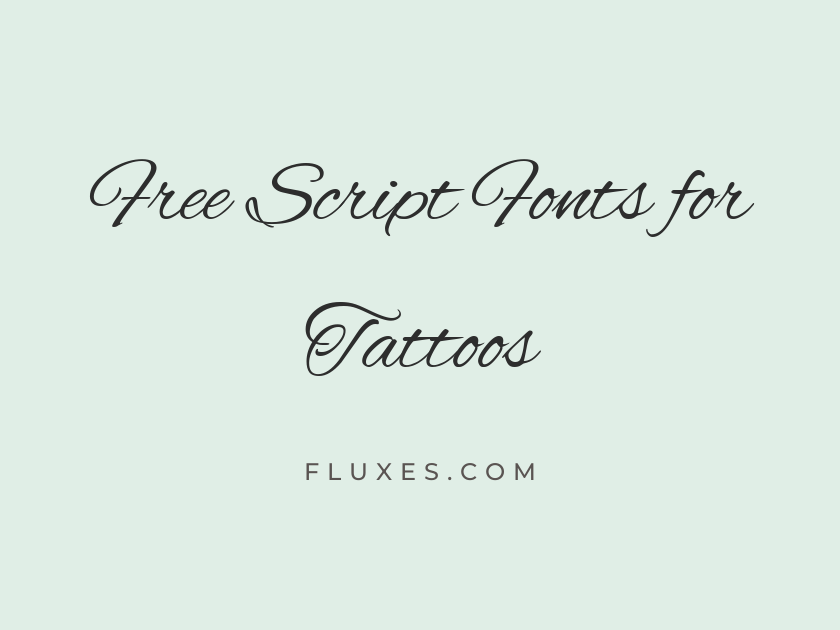
68 Best Free Script Fonts for Tattoos
Script lettering has been part of tattoo culture for as long as tattoo culture has existed, from sailor-parlor banners to modern fine-line quote work behind the ear. Choosing the right free script font for tattoo lettering means thinking beyond the screen: a flourish that looks gorgeous in a logo can turn into a blob of ink once it hits skin, ages a few years, and settles into softer lines. The fonts gathered here cover the full range that tattoo artists and their clients actually request, from formal copperplate calligraphy to loose, handwritten notes, all free to download and preview instantly on Google Fonts.
1. Alex Brush
Forever inked, forever remembered
Alex Brush is one of the most requested tattoo script fonts for a reason: its connected strokes and confident swash capitals read as genuinely hand-lettered rather than digital.
It holds up well in medium sizes on forearms and ribs, though the thinnest hairlines can blur slightly on very small pieces, so it pairs best with a steady, experienced linework artist.
2. Allura
She wears her scars like art
Allura leans lighter and more romantic than Alex Brush, with slender connecting strokes that suit a single name or short phrase rather than a full sentence. It photographs beautifully on collarbones and inner arms where there is room to let the loops breathe.
3. Great Vibes
Love leaves a permanent mark
Few free scripts get requested by name at tattoo studios as often as Great Vibes. It has become something of a default for memorial tattoos and wedding-date pieces, prized for its long entry strokes and even, rhythmic slant.
4. Sacramento
Written on skin, etched in soul
Sacramento is narrower and more compact than most formal scripts, which makes it a smart pick when a client wants elegant lettering to fit along a slim area like a finger or ankle. The reduced flourish also means it survives fading and blurring a little better over time.
5. Pacifico
Salt water heals everything, ink included
Born from surf-shop signage rather than the wedding-invitation world, Pacifico brings a rounded, friendly bounce that suits beach memories, travel tattoos, and anything meant to feel lighthearted rather than solemn.
Its thick, consistent strokes make it one of the more legible casual scripts at small sizes, which is worth remembering when a client wants a wrist or ankle piece.
6. Dancing Script
Some stories deserve a permanent home
Dancing Script is the reliable all-rounder of the free script world, bouncy enough to feel personal without tipping into illegible flourish.
The bold weight in particular reads clearly at tattoo scale, and the exaggerated ascenders and descenders give a piece some visual movement even on a plain black-ink quote.
7. Satisfy
Not all who wander lack direction
Satisfy sits somewhere between brush lettering and casual cursive, with a slightly rough, marker-like texture that suits travel quotes and outdoorsy sentiments. It reads as more relaxed than a formal calligraphy script, which matters when the tattoo is meant to feel like a personal note rather than an invitation.
8. Kaushan Script
Bold ink for a bold heart
Thick, confident, and unmistakably brush-drawn, Kaushan Script works well for statement pieces that need to hold their own on a shoulder or calf. It has enough weight to survive some fading, which is a real practical advantage over the more delicate copperplate styles.
9. Yellowtail
Ride free, love hard, ink deep
Yellowtail has a retro, hand-painted feel reminiscent of vintage surfboard and hot-rod lettering. It suits Americana-flavored tattoo work, particularly pieces already leaning on bold linework or classic flash imagery.
10. Marck Script
In loving memory, always with me
Marck Script keeps its loops modest and its baseline steady, giving it a slightly more restrained, handwritten quality than showier formal scripts. That restraint is exactly what makes it a common choice for memorial tattoos, where legibility and sincerity matter more than flourish.
11. Tangerine
Grace under a needle's steady hand
Tangerine is delicate almost to a fault, an old-fashioned copperplate style with hairline strokes that look stunning in a large printed capacity but demand real caution at tattoo scale.
It is best reserved for larger pieces with plenty of skin real estate, ideally sketched first at full size to check the thinnest joins will actually hold up under a needle.
12. Playball
Sailor stories worth a lifetime of ink
Playball has a rounded, retro-sign quality that recalls old boardwalk lettering more than formal calligraphy. It suits nautical themes and vintage flash reinterpretations nicely.
13. Petit Formal Script
Faith, hope, and a little courage
This one is genuinely elegant on a wedding invitation, but its extremely fine, uniform strokes are among the riskiest in this list for tattoo use; at small sizes those thin lines can blur together within a few years. Reserve it for larger-scale lettering only, and discuss longevity with the artist before committing.
Bring a printed proof to your tattoo artist rather than relying on a digital file alone. A skilled letterer will often adjust spacing and stroke weight slightly to account for how the specific font will translate to skin.